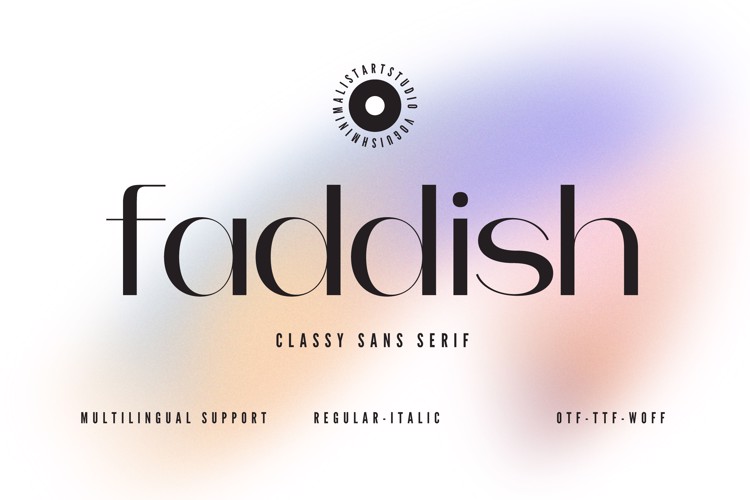
Faddish Font
๐จ Font Name: Faddish by Minimalist Art Studio
๐จ Font Description: Faddish is a classy sans serif with multilingual supportโperfect for fashion branding, editorial finesse, and minimalist packaging.
โ Complete Latin set + multilingual diacritics
โ Alternates, stylistic sets & ligatures
โ Numbers, small caps, and extended punctuation
โ Bonus italics and family styles